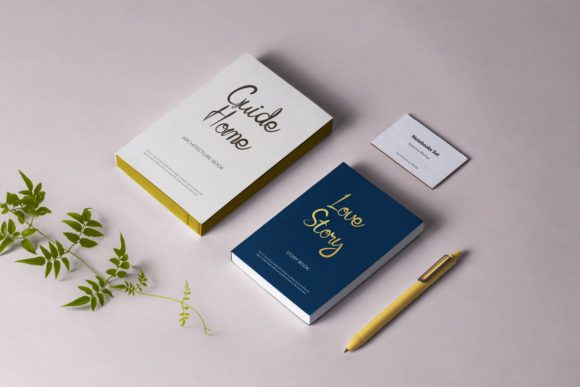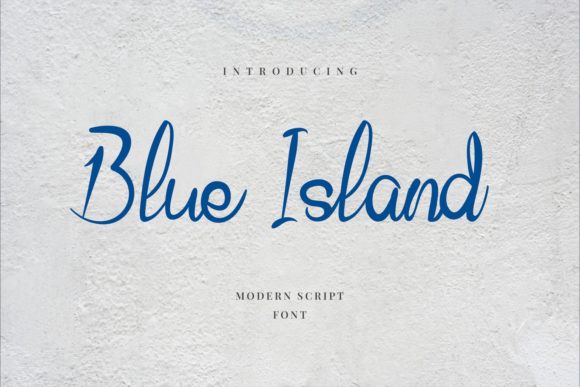
Blue Island Font
About Blue Island Font
Blue Island is a modern and trendy handwritten font. Dainty and joyful, this font will be ideal for writing wedding invitations, cards or any other design that may need a romantic, personalized touch!